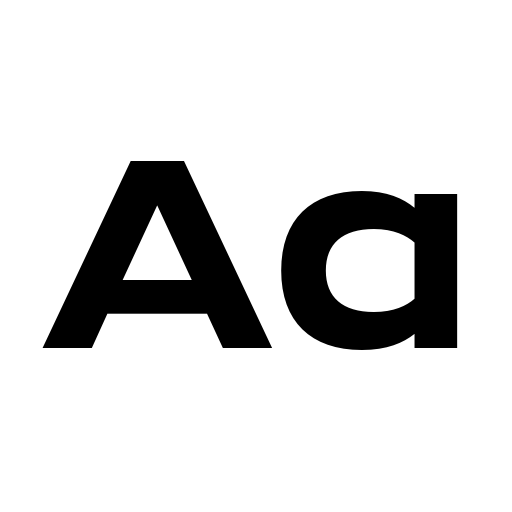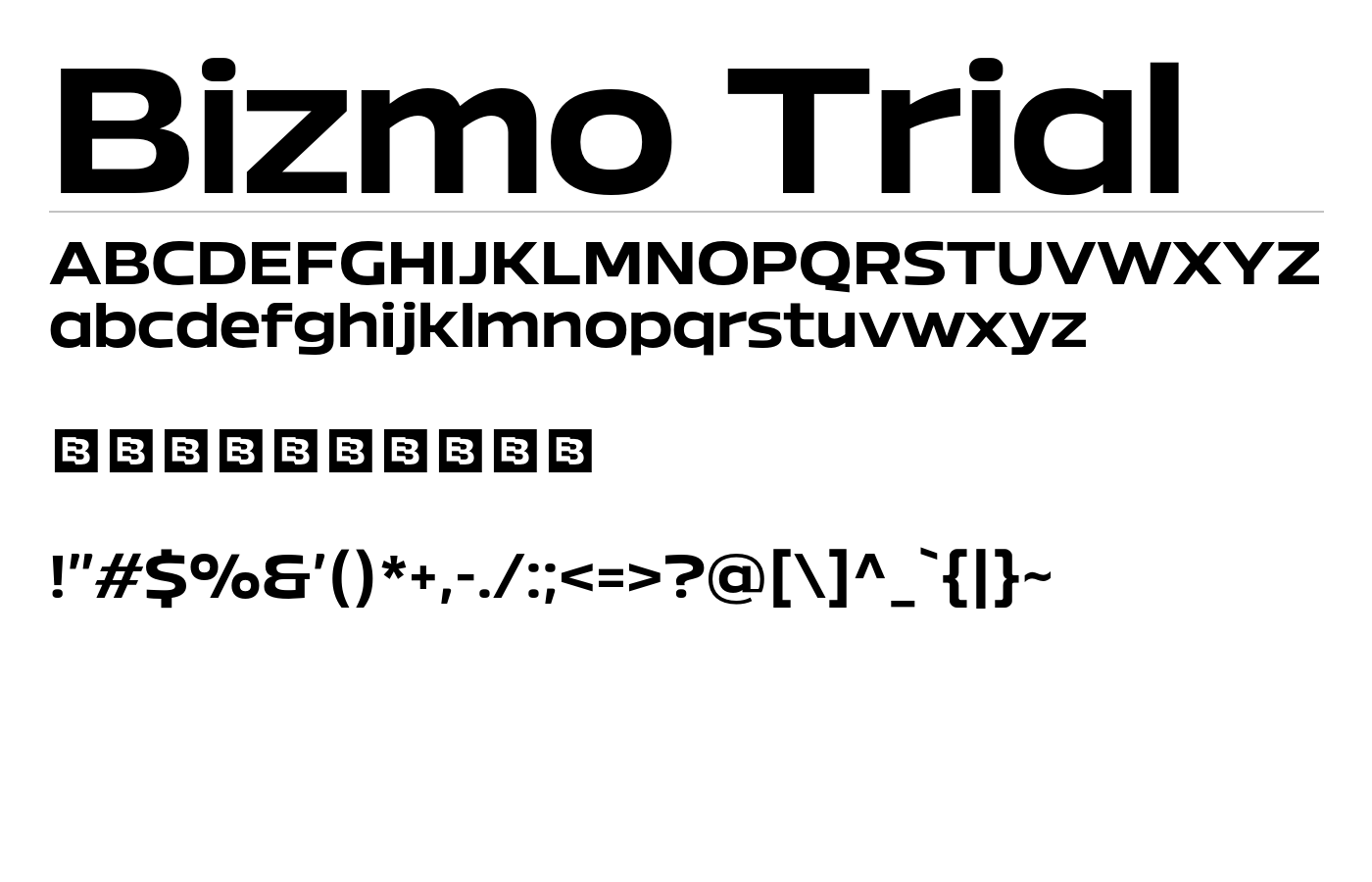
Bizmo Trial is a bold, modern sans serif font with clean, geometric shapes and a strong presence. Its balanced stroke weight and tight spacing make it highly legible and suitable for contemporary branding, headlines, and digital use where clarity and impact are essential. This font works well for businesses or projects seeking a confident and straightforward aesthetic.
Bizmo Trial Font
About Bizmo Trial Font
| Font family | Bizmo Trial Font |
| Designer | Eko Bimantara |